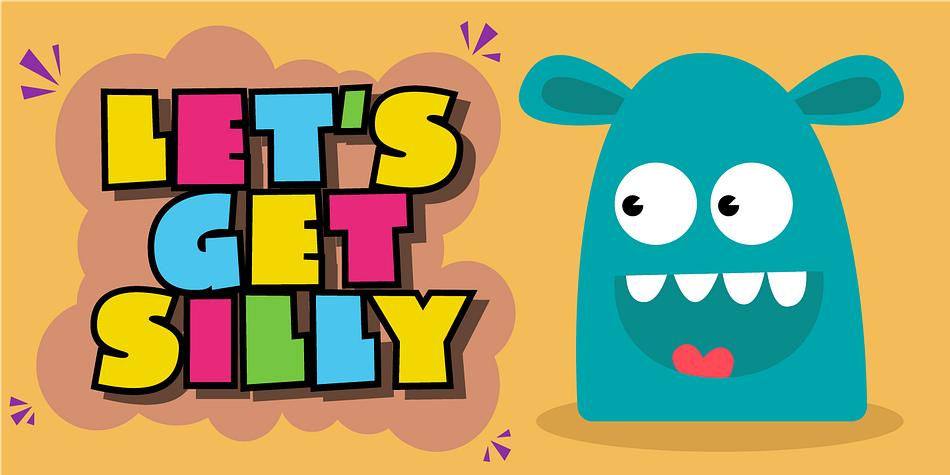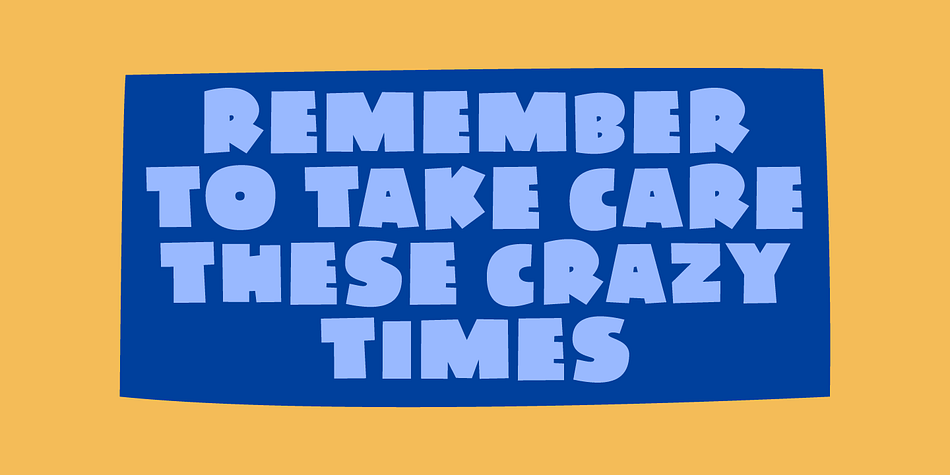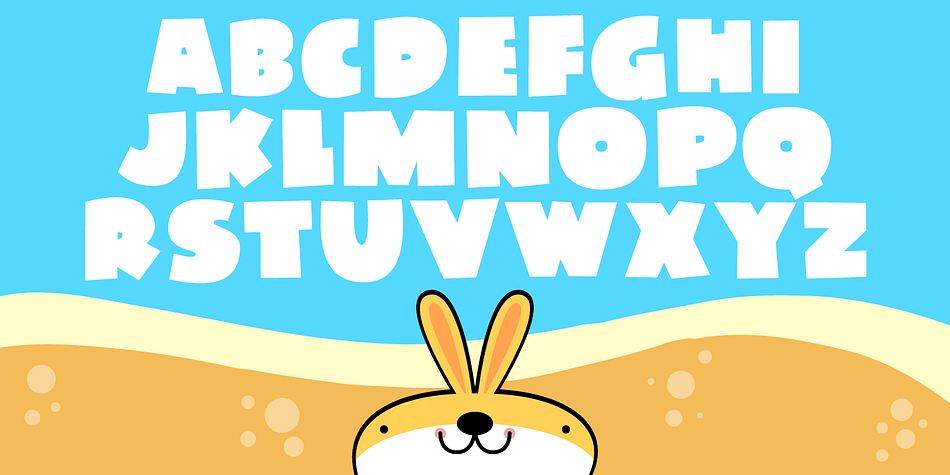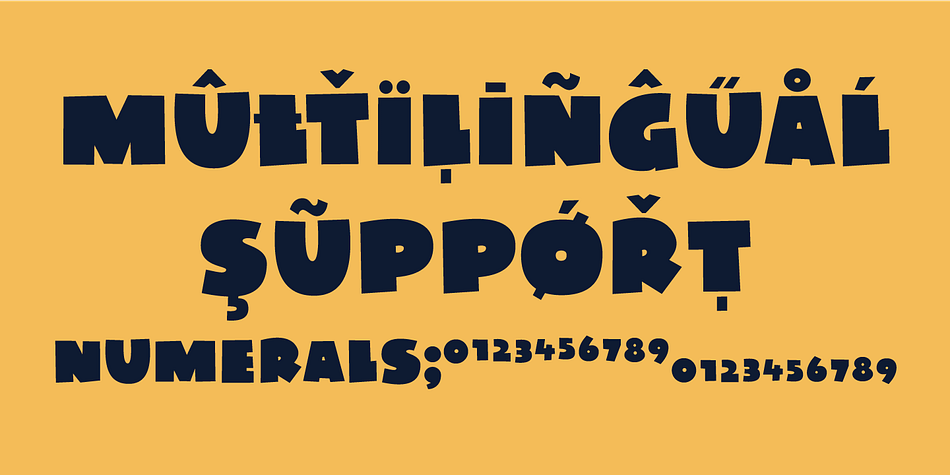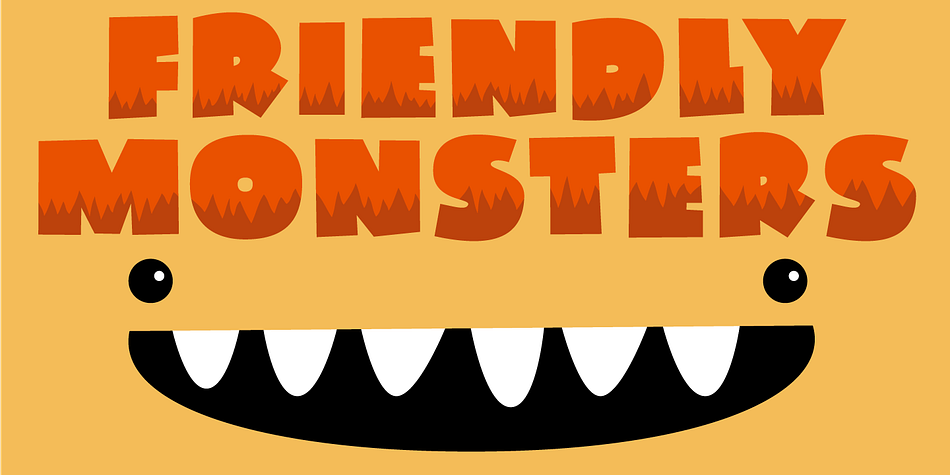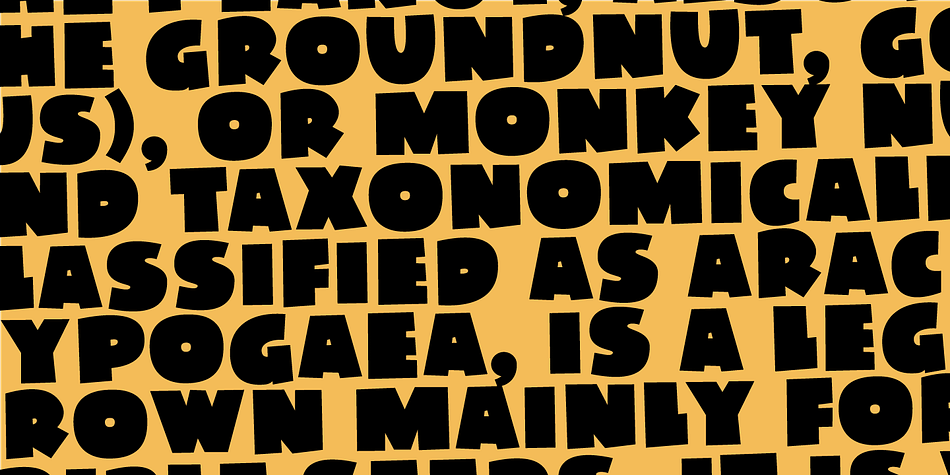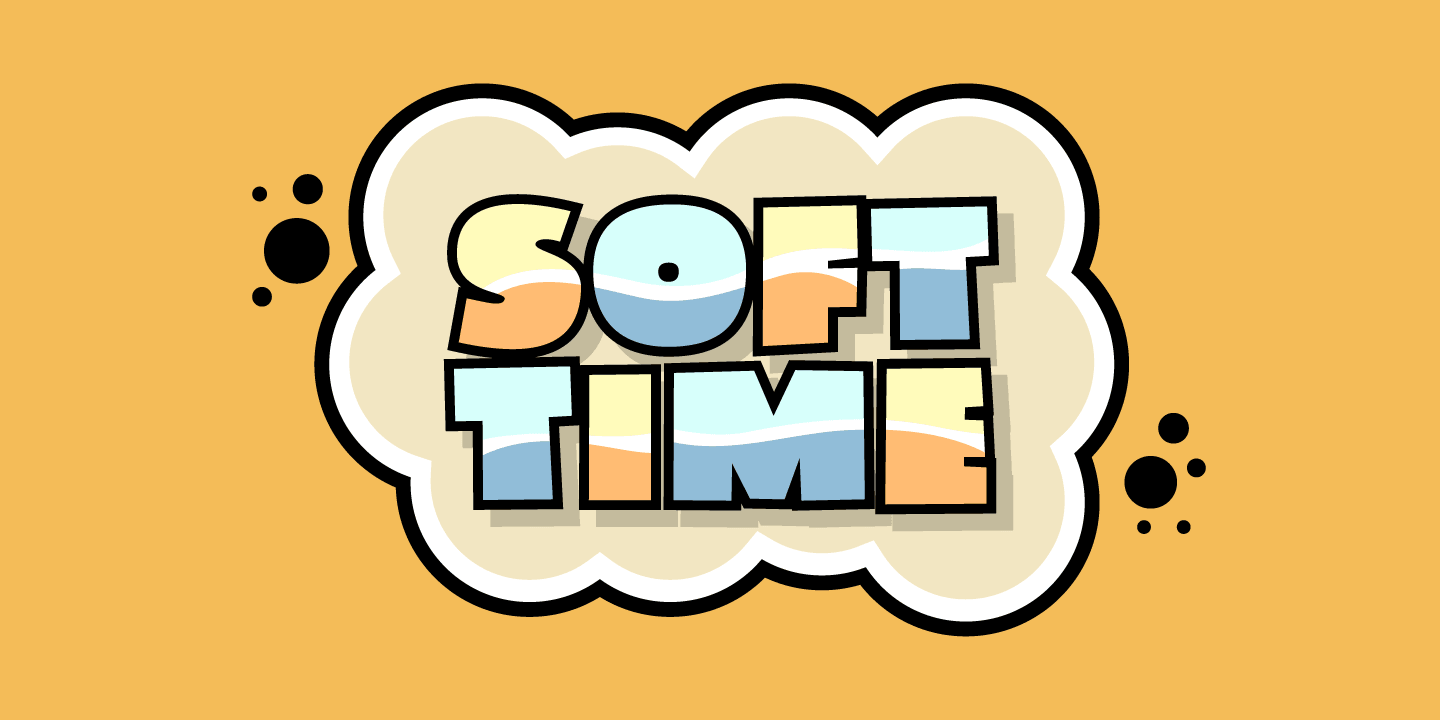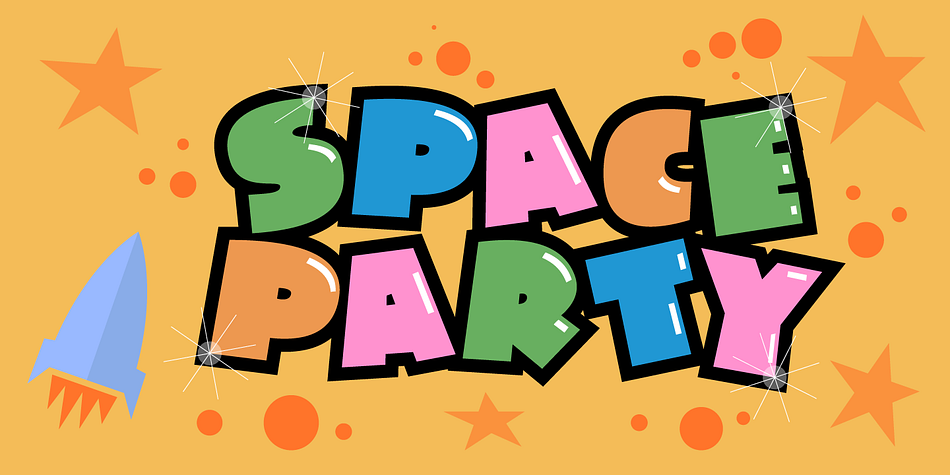
Designed by Jakob Fischer, Soft Time is a comic and hand display font family. This typeface has two styles and was published by Pizzadude.dk.
Soft Time is an updated and cleaner version of my popular font Soft Lime. Soft Time has kept the bold and happy look that came with Soft Lime